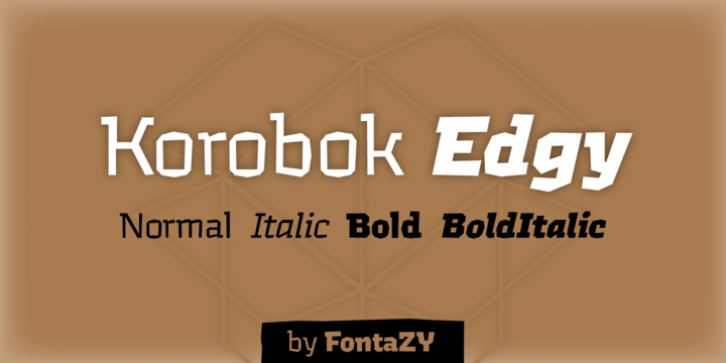
Korobok Edgy was designed by Zakhar Yaschin and published by FontaZY. Korobok Edgy contains 4 styles and family package options.
Korobok mean 'little box' in Russian. Korobok is irregular font with asymmectric serifs and slightly geometric appearance. This font is good for children books, comic books, videogames and package design.
Korobok comes in two sub-families - Korobok Soft (with smooth edges) & Korobok Edgy (width straight edges), both includes 4 styles.
· Korobok Edgy
· Korobok Edgy Italic
· Korobok Edgy Bold
· Korobok Edgy Bold Italic